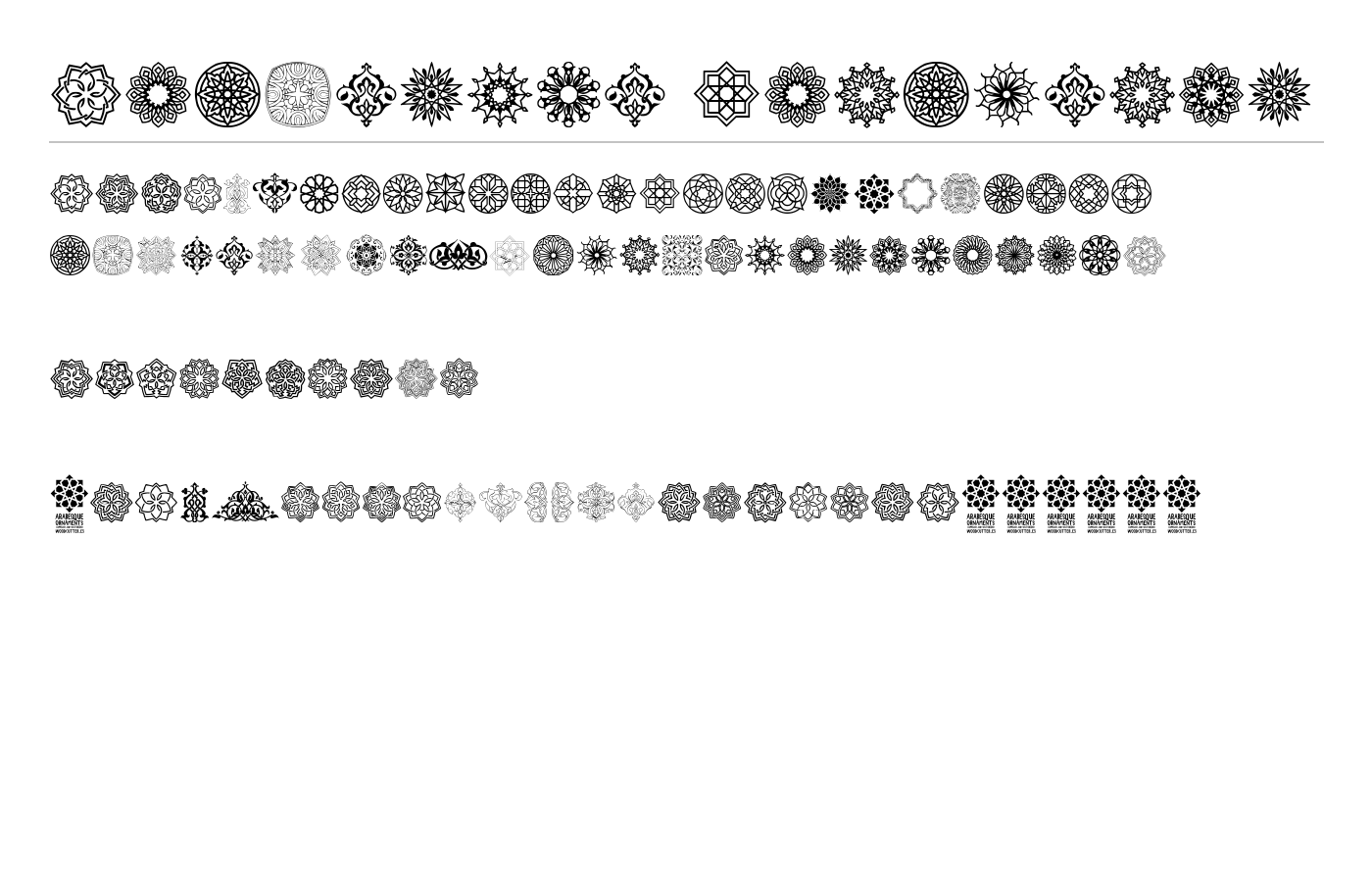
Arabesque Ornaments is a decorative font featuring intricate, symmetrical designs inspired by traditional Middle Eastern art. With its fine lines and geometric floral motifs, this font adds an elegant and cultural touch, making it perfect for luxury branding, invitations, and decorative accents. It works best in projects that seek to convey sophistication and a rich artistic heritage.
Arabesque Ornaments Font
About Arabesque Ornaments Font
| Font family | Arabesque Ornaments Font |